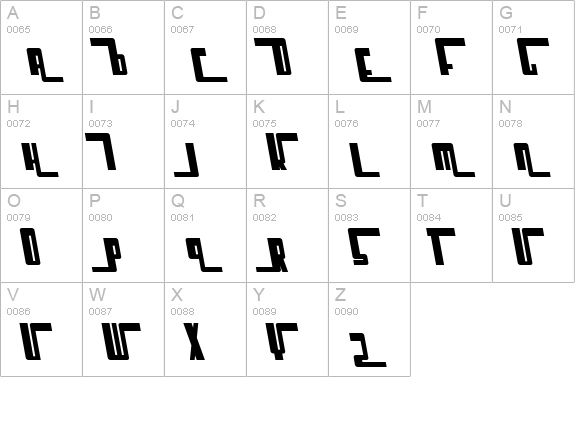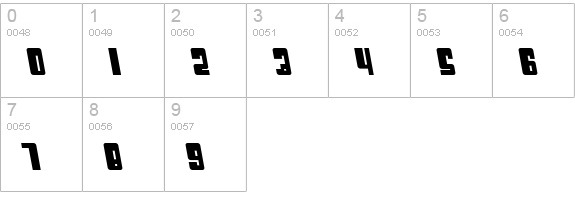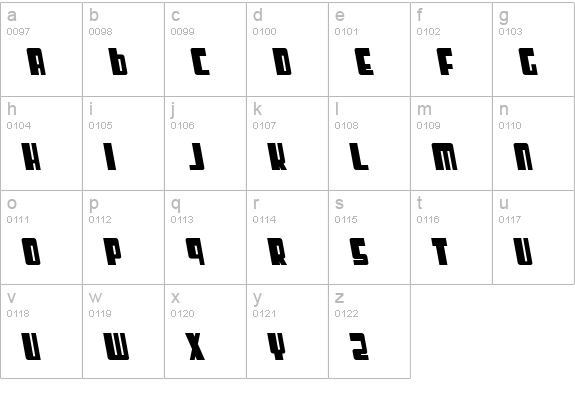
SF Cosmic Age Bold Oblique Font Details
SF Cosmic Age Bold Oblique is a strong, high-contrast, italic variant in the SF typeface family \xE2\x80\x94 well suited to headlines, attention-grabbing titles, and strong calls-to-action.
SF Cosmic Age Bold Oblique is a captivating and futuristic typeface that exudes a sense of cosmic wonder and infinite possibilities. With its sleek and edgy design, this font is perfect for projects that require a bold and adventurous aesthetic. The oblique angle adds an extra touch of dynamism, giving your text a sense of motion and energy. This font is freely available to download at FontsMarket.com, allowing you to unleash your creativity without any restrictions. Whether you're designing eye-catching posters, creating captivating headlines, or adding a touch of futuristic flair to your branding materials, SF Cosmic Age Bold Oblique will effortlessly elevate your designs to new heights. The bold weight of this font makes it highly readable, ensuring that your message will always command attention. The sharp and angular letterforms are reminiscent of intergalactic spaceships and distant star systems, making SF Cosmic Age Bold Oblique the perfect choice for science fiction and cosmic-themed projects. With its versatile nature, this font can be used in a wide range of design applications, from digital interfaces to print media. Its clean and modern appearance makes it suitable for both small and large sizes, ensuring legibility across various mediums. Whether you're a graphic designer, a web developer, or simply a creative enthusiast, SF Cosmic Age Bold Oblique will inspire you to explore new design territories. So go ahead and unleash your imagination with this stunning font, freely available to download at FontsMarket.com. Embark on a cosmic journey of creativity and let SF Cosmic Age Bold Oblique be your trusted companion along the way.